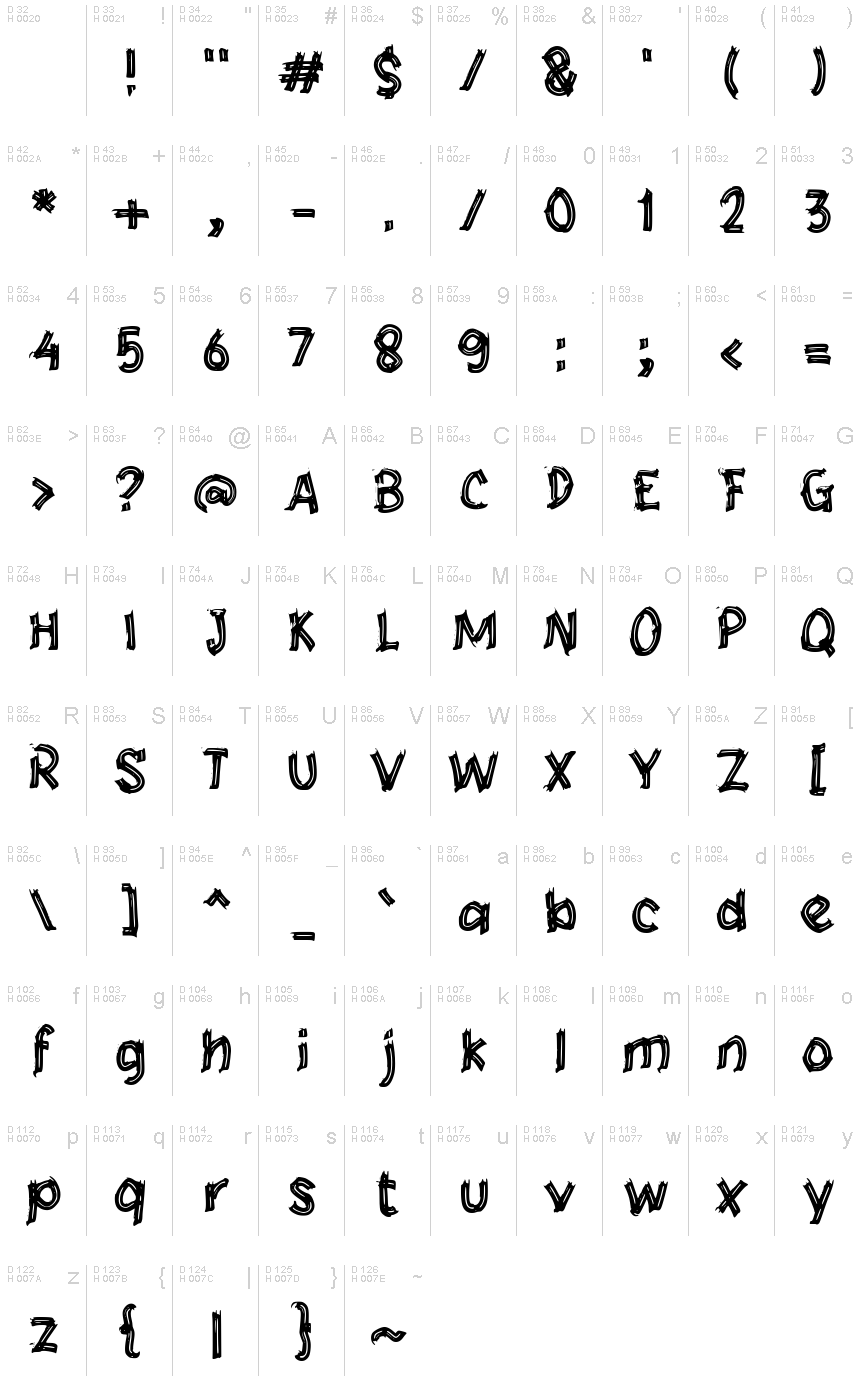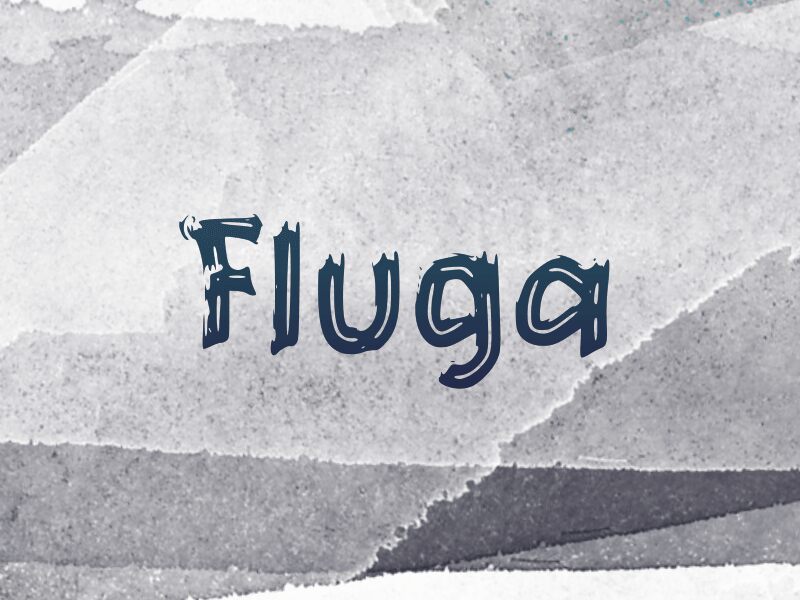
Fluga
Fluga, a captivating script font crafted by designer wep, exudes a raw, unrefined charm that captivates the senses. Its bold, imperfect strokes and organic fluidity convey a sense of authenticity, inviting the viewer to experience a touch of graceful imperfection. The font's distinct personality resonates with those seeking to infuse their designs with a touch of edgy sophistication.
Fluga's versatility makes it a compelling choice for a wide range of design applications. From eye-catching headlines and editorial pieces to product branding and packaging, this font's unique character has the power to elevate any project, lending an air of effortless style and memorable individuality. Whether crafting a modern urban aesthetic or infusing a touch of gritty elegance, Fluga's versatility ensures it can seamlessly integrate into a diverse array of design contexts.